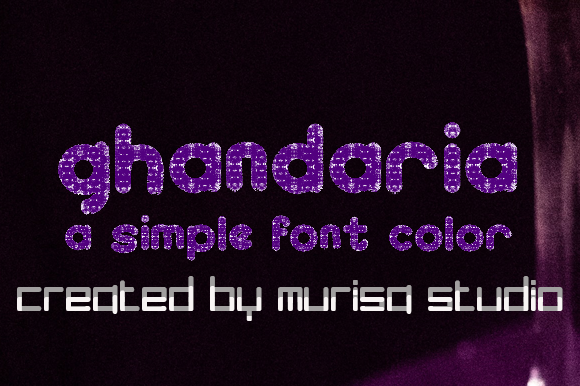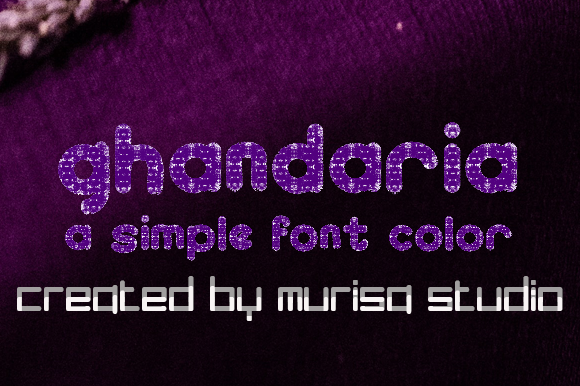
Introduction to Ghandaria Font
Have you ever been stuck on a creative project, staring at a blank canvas, and desperately searching for that one element to bring it all together? For many designers, that game-changing element is often a high-quality font that adds a touch of sophistication and elegance to the design. This is where the Ghandaria Font comes in – a cool, color font that has the potential to elevate any creation and take it to the next level.
Whether you’re working on a logo, brochure, or social media graphics, the Ghandaria Font is an invaluable design resource that will add a unique and eye-catching touch to your work. With its transparent background and versatile style, this font is perfect for designers who want to add a pop of color and creativity to their projects. And the best part? This font is available for free download, making it an accessible resource for designers of all levels.
Key Features of Ghandaria Font
- High-Quality Typography: The Ghandaria Font offers a unique blend of elegance and sophistication, making it an ideal choice for creative projects.
- Transparent Background: This font features a transparent background, allowing designers to easily place it over any image or design element.
- High Resolution: The font is designed at 300 DPI, making it suitable for high-quality printing and digital applications.
- Unique Character Set: The Ghandaria Font features a unique character set, including a range of special characters and symbols, making it an ideal choice for creative projects.
Honest Review: Ghandaria Font
I recently stumbled upon the Ghandaria Font, a free design resource that caught my attention. At first glance, I was drawn to its unique and quirky style, perfect for adding a creative touch to my next project. ✨ The font’s bold lines and intricate details make it an excellent choice for those seeking a high-quality, eye-catching font.
- Unique and quirky style
One of the standout features of the Ghandaria Font is its transparent background, allowing for seamless integration with any design element. Additionally, the font is highly versatile and can be used for a variety of creative projects, from logos to graphics and more.
While the Ghandaria Font is an excellent resource, there are a few limitations to consider. ⚠️ For instance, the font may not be suitable for body text due to its bold and intricate design. Furthermore, some users may find the font’s style too unconventional for certain projects.
Overall, I’m impressed with the Ghandaria Font’s unique style and high-quality design. It’s a great addition to any designer’s toolkit, especially for those working on creative projects that require a bold and eye-catching font.
Tips for Getting the Most Out of Ghandaria Font
The Ghandaria Font is ideal for creative projects that require a unique and high-quality design. Some common use cases include branding, marketing materials, and social media graphics. With the Ghandaria Font, you can create a professional and creative design that stands out from the crowd.
Is the Ghandaria Font suitable for use on a transparent background?
Yes, the Ghandaria Font has a transparent background, making it ideal for use on digital products like websites, social media graphics, and mobile apps. The font’s design is also optimized for use on high-quality printing materials, ensuring that it looks great in both digital and print formats.